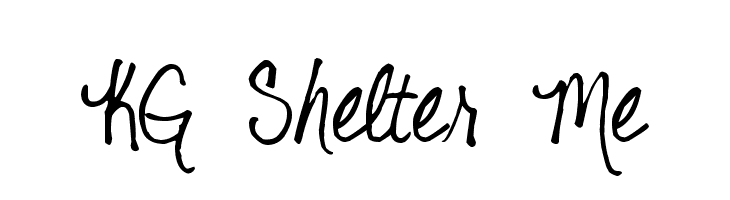
A playful, handwritten font with smooth curves and a whimsical style.
A playful, handwritten font with dynamic and irregular strokes.
A playful, handwritten font with a whimsical and informal style.
Playful handwritten font with rounded edges.
A tall, slender font with a modern and elegant style.
A playful, hand-drawn font with a textured, sketch-like appearance.
A playful, casual handwritten font with rounded, consistent strokes.